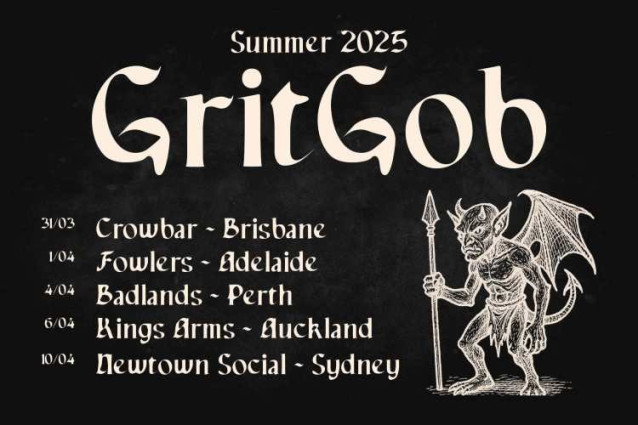
CS Ariston Drawn Font
CS Ariston Drawn Font is a display serif font that reimagines the traditional blackletter style through a bold, modern perspective. Its sharp, angular letterforms and dense structure evoke the intensity of Gothic calligraphy while embracing a contemporary edge that makes it highly relevant for today’s design needs.
At the heart of this mystery font is its distinctive visual language—tall, commanding shapes with crisp strokes and assertive serifs. These features give the font a dramatic tone, ideal for communicating emotion and impact. Its blackletter inspiration brings a historical sense of weight.
Adding depth and character, the drawn effect introduces a handcrafted texture that contrasts beautifully with the font’s structured base. This subtle imperfection breathes life into the design, giving it a raw, artistic vibe. The result is a visual blend of control and creativity, perfect for designers looking to add a unique, human touch to bold type.
Whether used in music posters, underground fashion campaigns, editorial spreads, book titles, or album artwork, this edgy font delivers a high-impact impression. It’s especially effective in projects that aim to feel mysterious, rebellious, expressive, or emotionally charged.